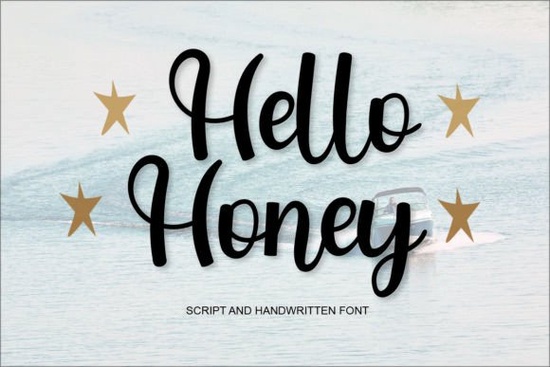
If you are looking for a cursive script that feels warm, approachable, and slightly romantic, Hello Honey Font might be the exact style you need for your next creative project. Designers and small business owners often search for typefaces that balance elegant letterforms with a relaxed, handwritten feel. This script delivers both. Instead of looking overly polished, it carries a gentle rhythm that reads naturally on screens and printed materials. Whether you run a boutique shop, create wedding stationery, or design social media graphics, you can drop this lettering style directly into your layouts and see how the spacing holds up across different scales.
What kind of projects work best with this typeface?
Cursive scripts shine when personal connection matters more than rigid branding. You can use it for wedding invitations, boutique packaging, handmade labels, and fashion lookbooks. The flowing connections between letters make it ideal for short phrases, quotes, and headlines. Keep your body text in a clean sans-serif to maintain contrast while letting the script lead.
Print-on-demand sellers often ask whether this style translates well to physical goods. Because the strokes maintain consistent weight without becoming too thin or too heavy, it holds up nicely on apparel, mugs, and tote bags. Always test your design at the actual print size. Small tracking adjustments usually fix minor readability issues before production.
How should I pair it with other handwritten styles?